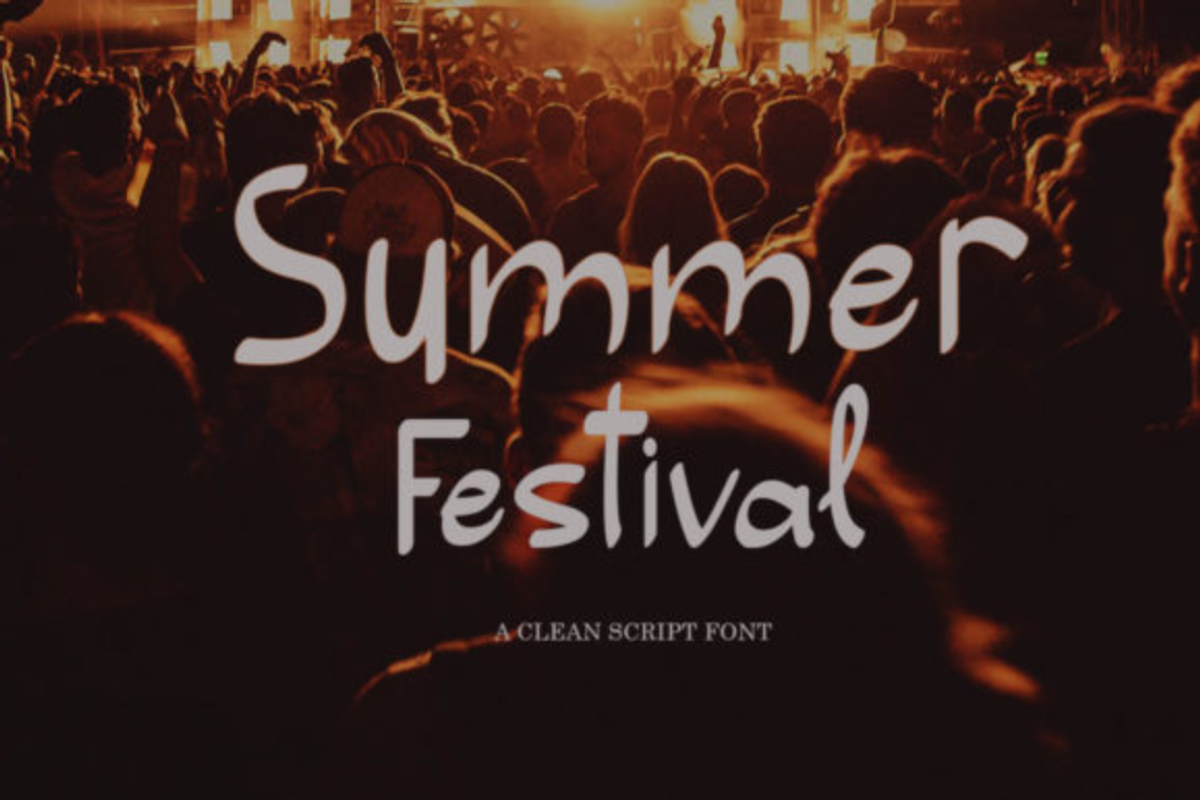
Summer Festival
Font Summer Festival is a vibrant and playful typeface that captures the essence of the summer season. It exudes a sense of joy, warmth, and excitement, making it perfect for creating lively and cheerful designs. The letters are beautifully crafted with a touch of whimsy, featuring slightly rounded edges and dynamic shapes that resemble water droplets or sun rays.
The font's characters are adorned with decorative elements inspired by nature, such as leaves, flowers, or tropical fruits, adding a tropical and festive vibe to any project. The overall design of the font is casual and relaxed, evoking images of sandy beaches, palm trees, and colorful cocktails.
With its bold and energetic appearance, Font Summer Festival is ideal for a wide range of applications. It can be used in posters, flyers, invitations, and banners for summer-themed events like music festivals, beach parties, or outdoor markets. It can also be applied to digital designs, social media posts, and website headers to infuse a sense of fun and warmth into the content.
Whether you're looking to create a design that radiates summer spirit or want to add a touch of playfulness to your project, Font Summer Festival is a delightful choice that will surely bring a cheerful and vibrant atmosphere to your typography.